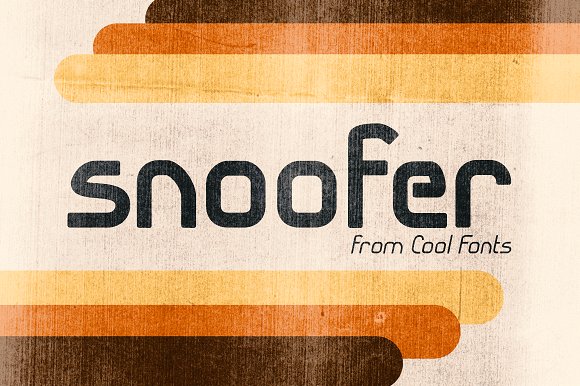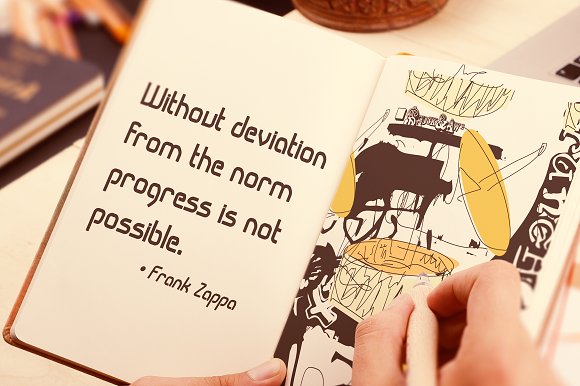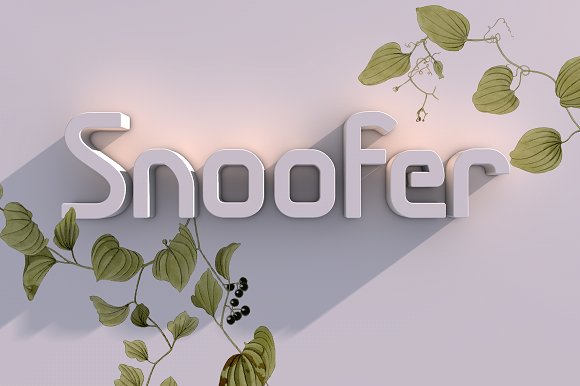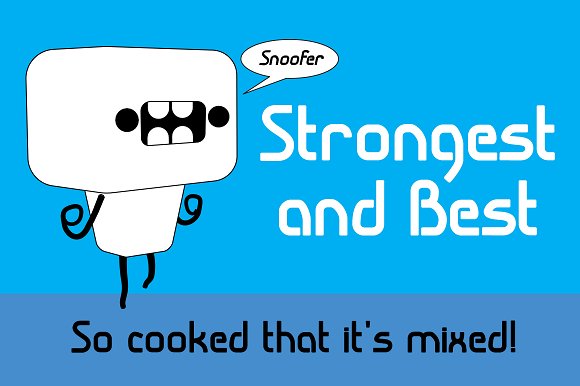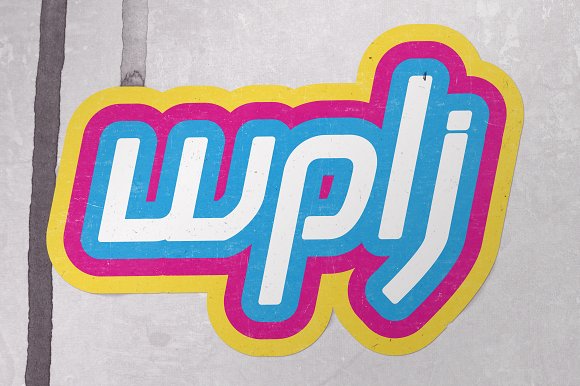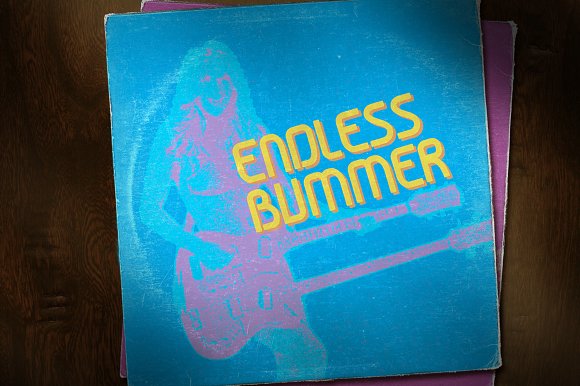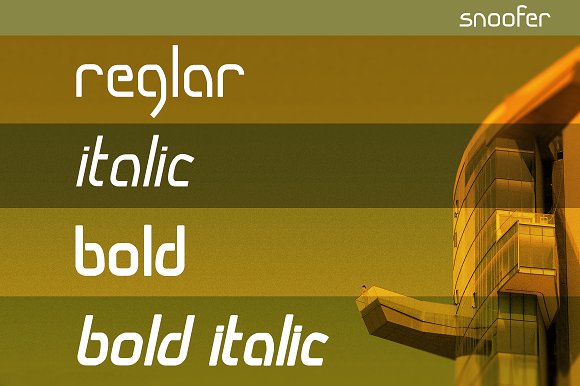
Snoofer Display Font
Snoofer
Snoofer is a modern font that works for both display and text. It comes in 4 weights (Regular, Italic, Bold, Bold Italic).
Snoofer was inspired by a character in stories my dad told me as a kid. Somehow they always ended with “… and they never left home again.”